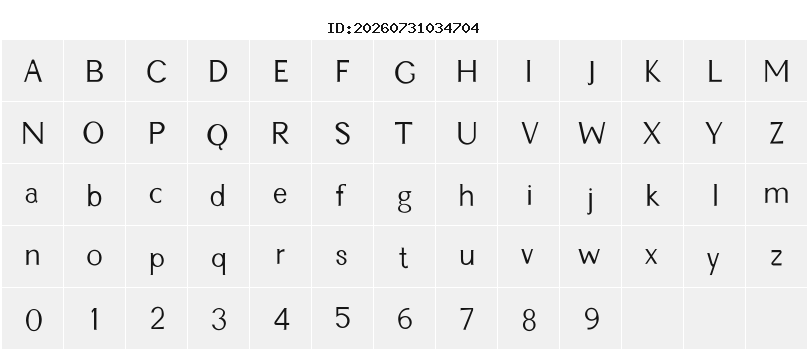
Litalitha Preview
• Font Name: Litalitha
• Full Font Name: Litalitha
• Copyright: Created for Kathy McFadden by Jim Morton at Pop Void Publications. Copyright 1988.
About Litalitha.ttf
Litalitha.ttf is a modern, elegant sans-serif font designed for ultimate readability and visual harmony. Perfect for branding, headlines, web design, and print materials.